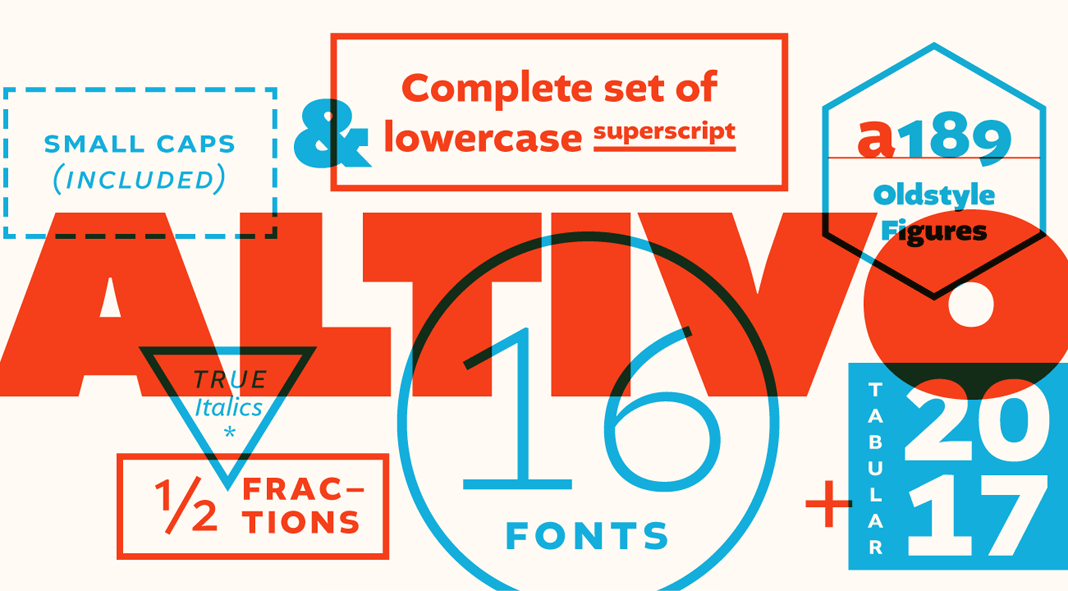
The Altivo font family, a proper workhorse sans serif typeface that performs quite well on screen.
Recently published by Kostic Type Foundry, Altivo is an extensive sans serif font family for highest professional needs. It has been designed to give you a proper workhorse for diverse screen design projects. The full family consists of 16 styles including 8 weights ranging from Thin to Ultra plus matching Italic versions for each weight. Get more information about all features below or click on the following link.
The typeface has been meticulous designed with regard to high legibility on the screen. Altivo offers wide proportions as well as a generous x-height, loose spacing, ink traps, large apertures and a low contrast between strokes. Equipped with 8 different weights, true Italics, small caps, multiple sets of figures, lowercase superscripts, tabular figures, and lots more of typographic features, this family was made for professional needs. For additional information on all options and buying choices, just follow the link below.